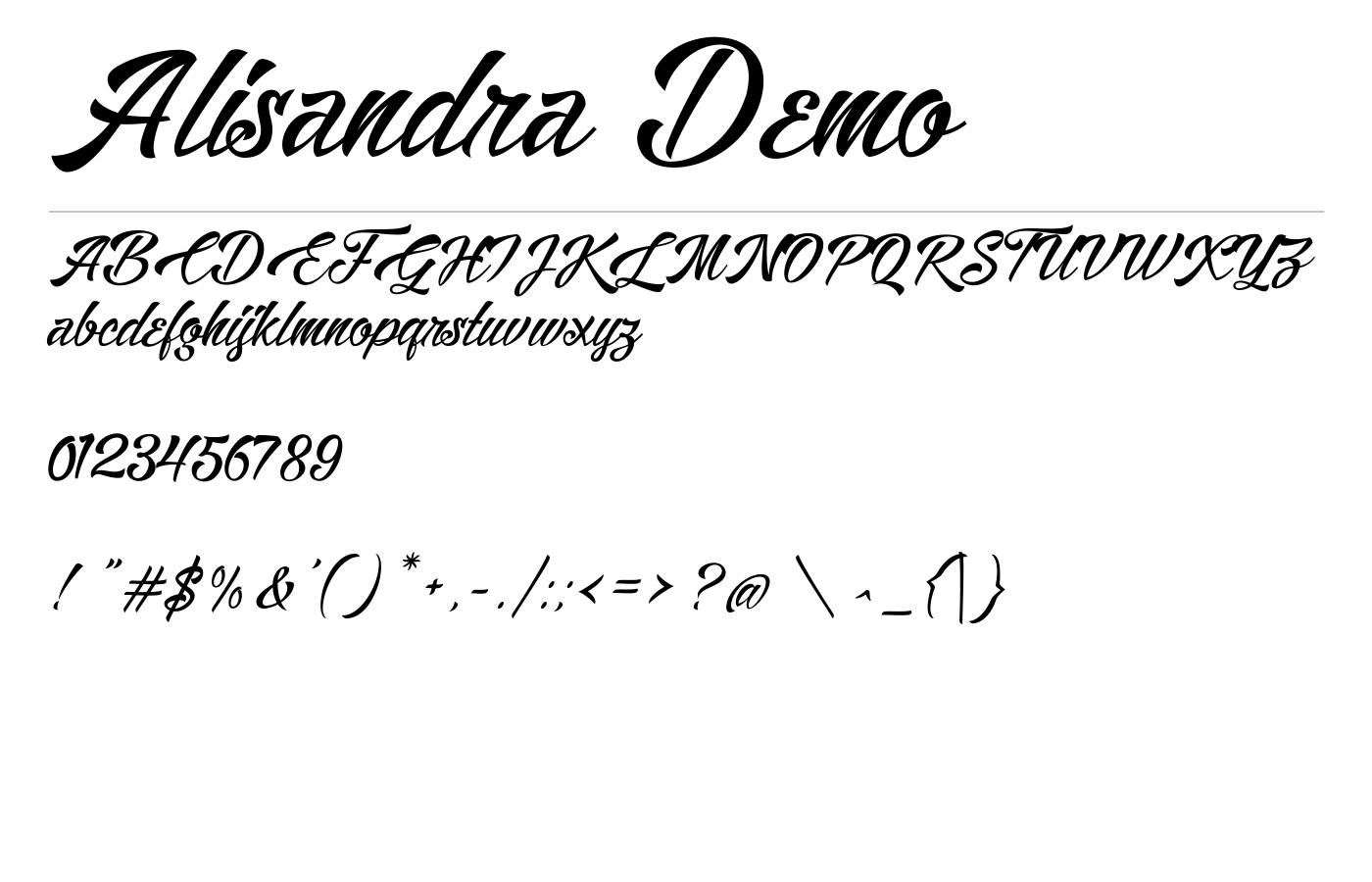
Alisandra Demo is an elegant script font featuring fluid, calligraphic strokes with moderate contrast and a graceful, cursive flow. Its stylish letterforms and smooth connections make it perfect for luxurious branding, invitations, and decorative headlines where a refined and sophisticated tone is desired. This font shines in designs that seek a classic, artistic feel with a modern touch.
Alisandra Demo Font
About Alisandra Demo Font
| Font family | Alisandra Demo Font |
| Designer | Hendra Pratama (Mikrojihad) |